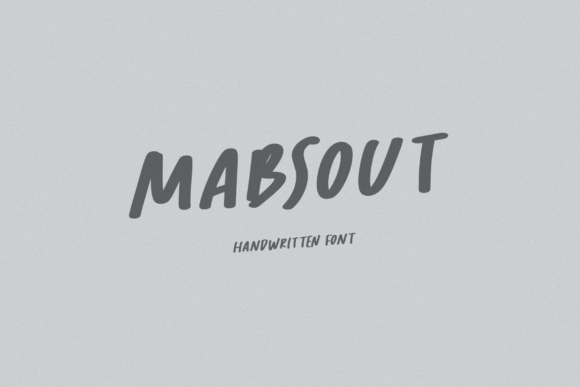
Unleash the captivating allure of Mabsout, an all-caps handwritten font that exudes expressiveness and commands attention. Designed to capture gazes and ignite creative visions, Mabsout presents itself as the perfect companion for poster designs, flyers, social media content, and beyond.
With its unique and bold characters, this font becomes a powerful storyteller, infusing personality and authenticity into your visual narratives. Whether you seek to create a distinctive logo, design striking posters, or craft captivating social media posts, Mabsout elevates your creations, leaving an unforgettable impression.
Immerse yourself in a world of visual delight as you explore the versatility of Mabsout. Its graceful strokes and enchanting curves bestow a timeless elegance upon your designs, while its inherent boldness ensures your messages stand out with clarity and impact.
Transport yourself to the charm of a handwritten letter, where each character dances across the page with a unique personality, evoking a sense of intimacy and connection. Mabsout's intricate details and intentional design infuse life into your creative projects, transforming them into visually compelling masterpieces.
Seize the opportunity to craft designs that captivate and inspire. Mabsout's captivating aura ensures your creations transcend the ordinary, leaving an indelible mark on your audience. Unleash your creativity and embrace the limitless possibilities that await you with this exceptional font.